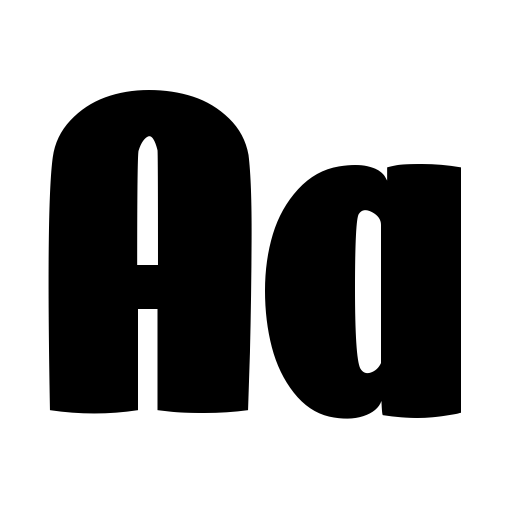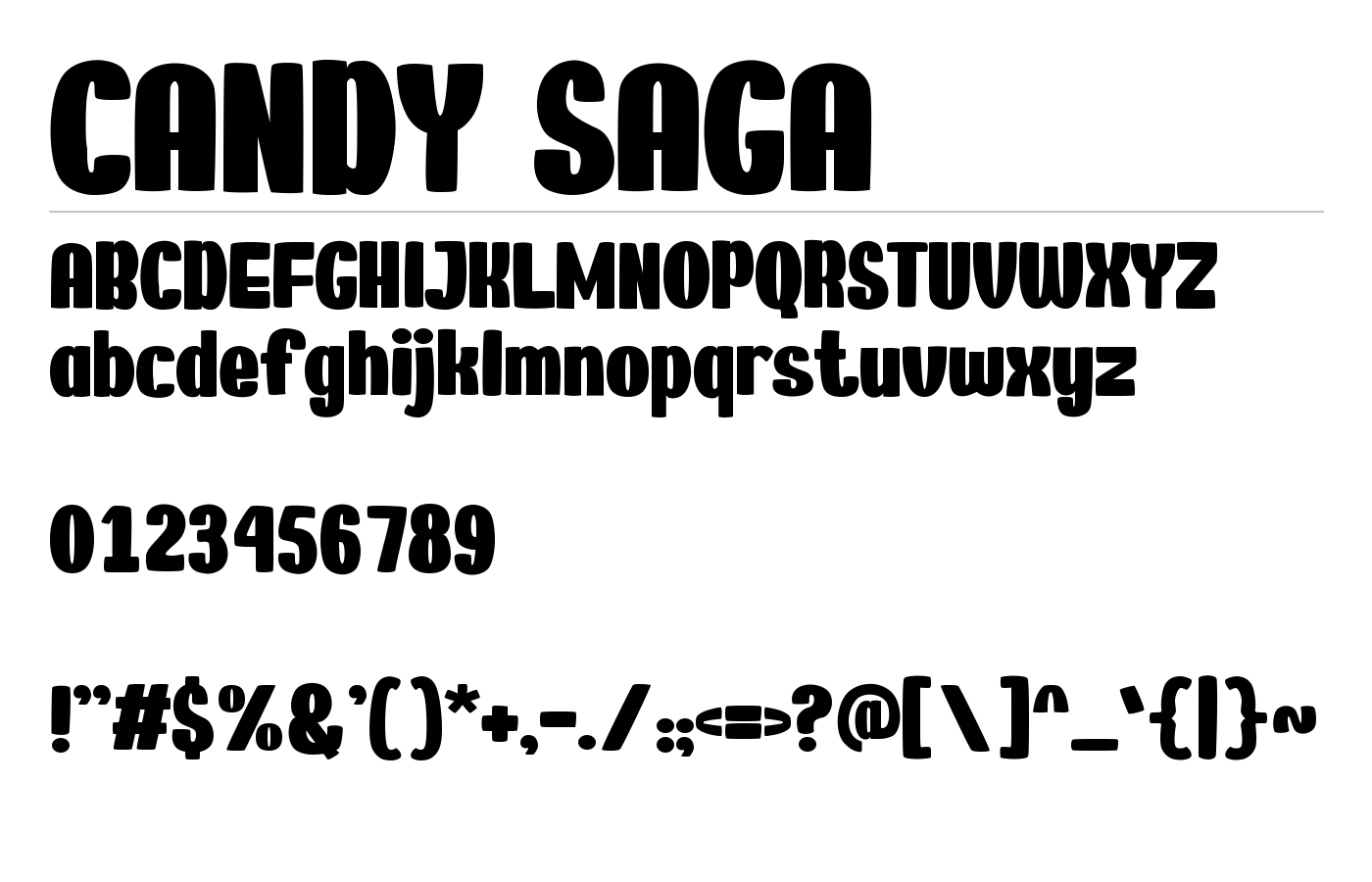
Candy Saga is a bold, playful sans serif font with rounded edges and a chunky, condensed style that gives it a friendly and approachable feel. Its thick strokes and unique, slightly quirky letter shapes make it perfect for fun, youthful branding, posters, and headlines where a strong, eye-catching presence is needed. This font works especially well for projects aiming to convey energy and creativity with a modern, casual vibe.
CANDY SAGA Font
About CANDY SAGA Font
| Font family | CANDY SAGA Font |
| Designer | PINISIART Team |